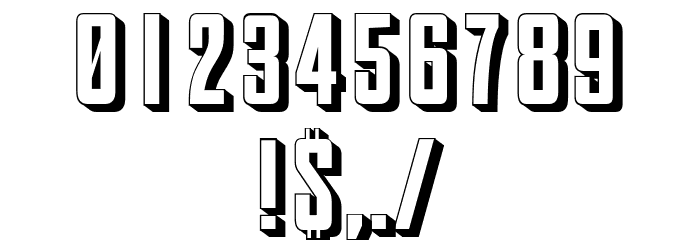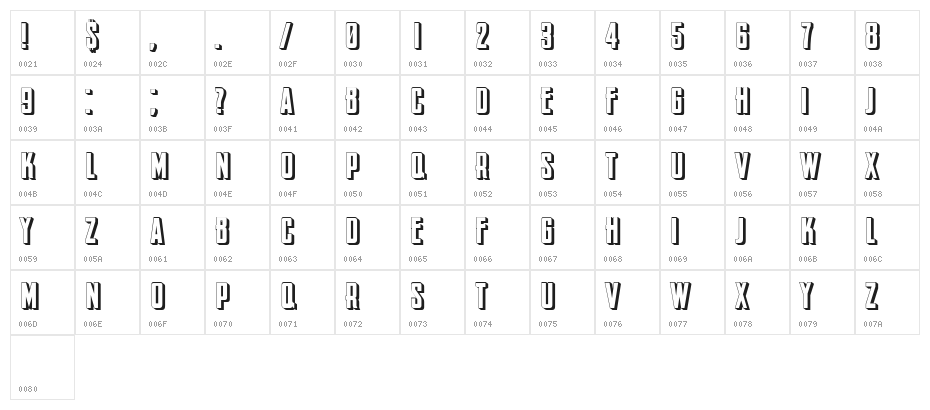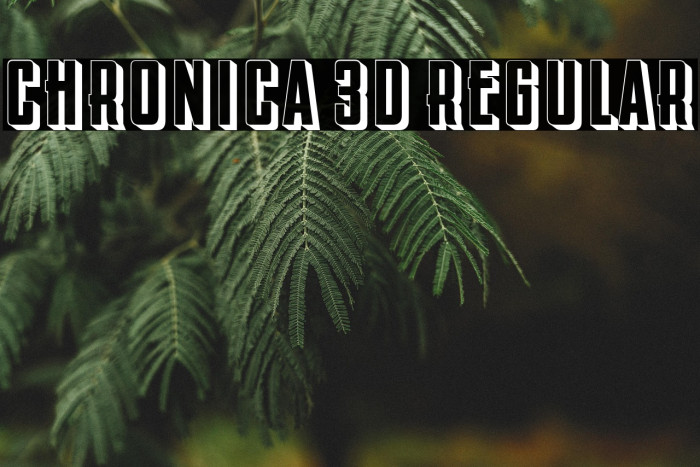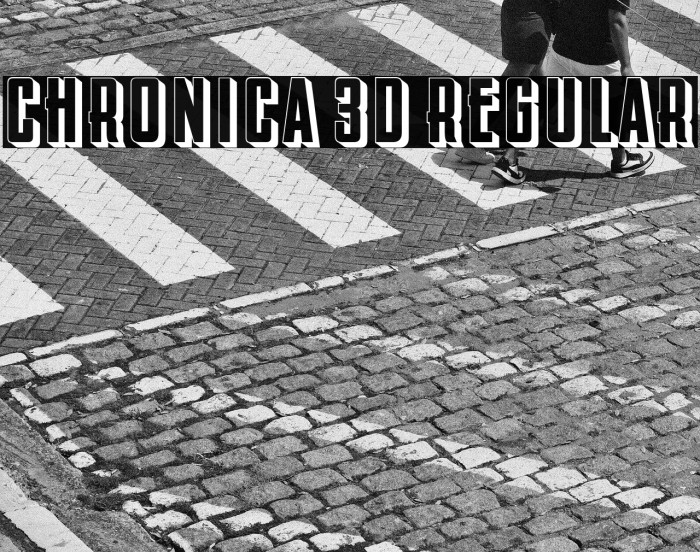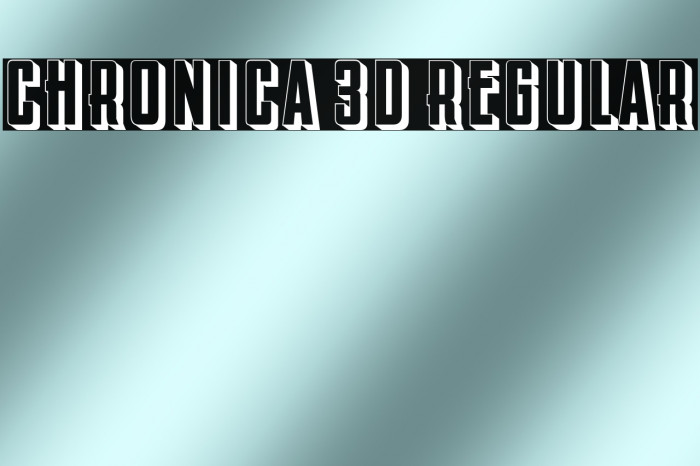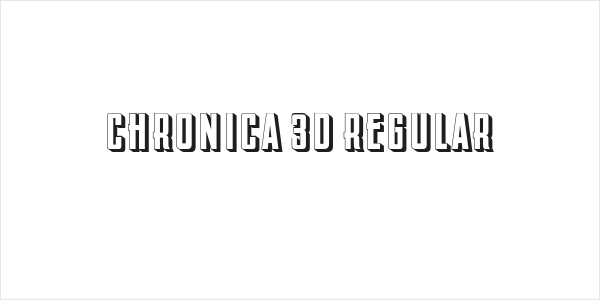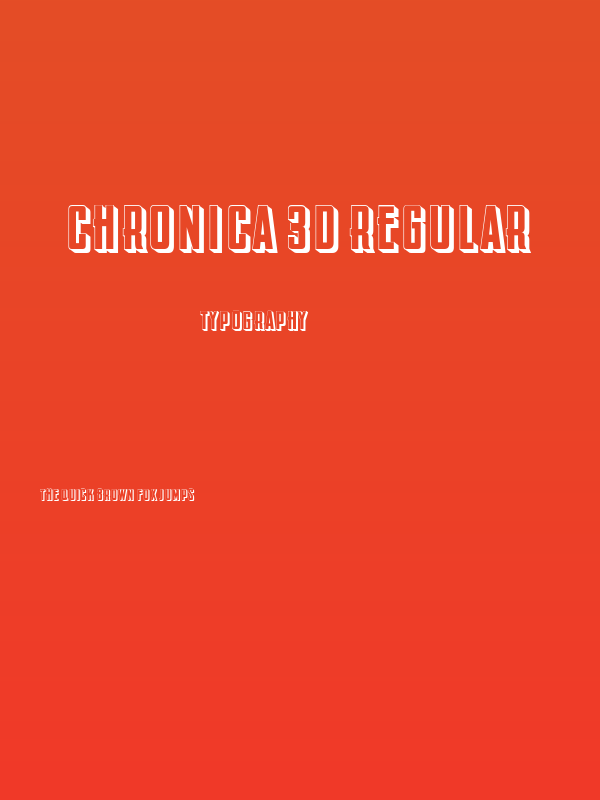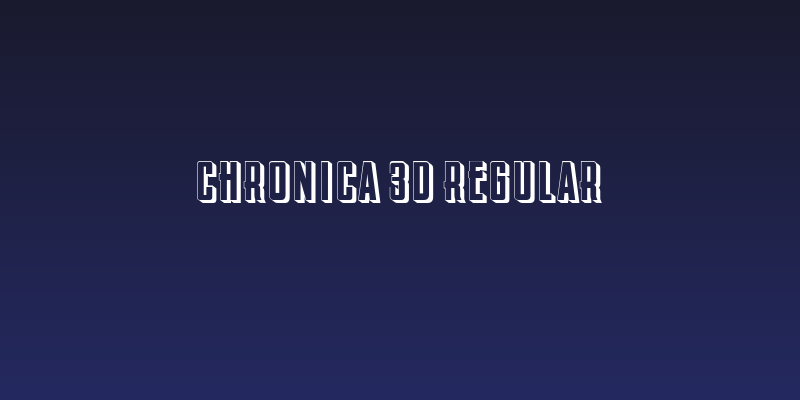
Chronica 3D Regular Font
Chronica 3D Regular Description
This font features a bold, three-dimensional design that gives each character a striking, shadowed appearance. The letters are uppercase and have a strong, geometric structure with sharp angles and clean lines. The 3D effect is achieved through a combination of thick strokes and contrasting shadows, creating a sense of depth and dimension. This style is reminiscent of vintage poster typography, making it ideal for creating eye-catching headlines and titles. The numbers and special characters maintain the same bold and dimensional style, ensuring consistency across all text elements.